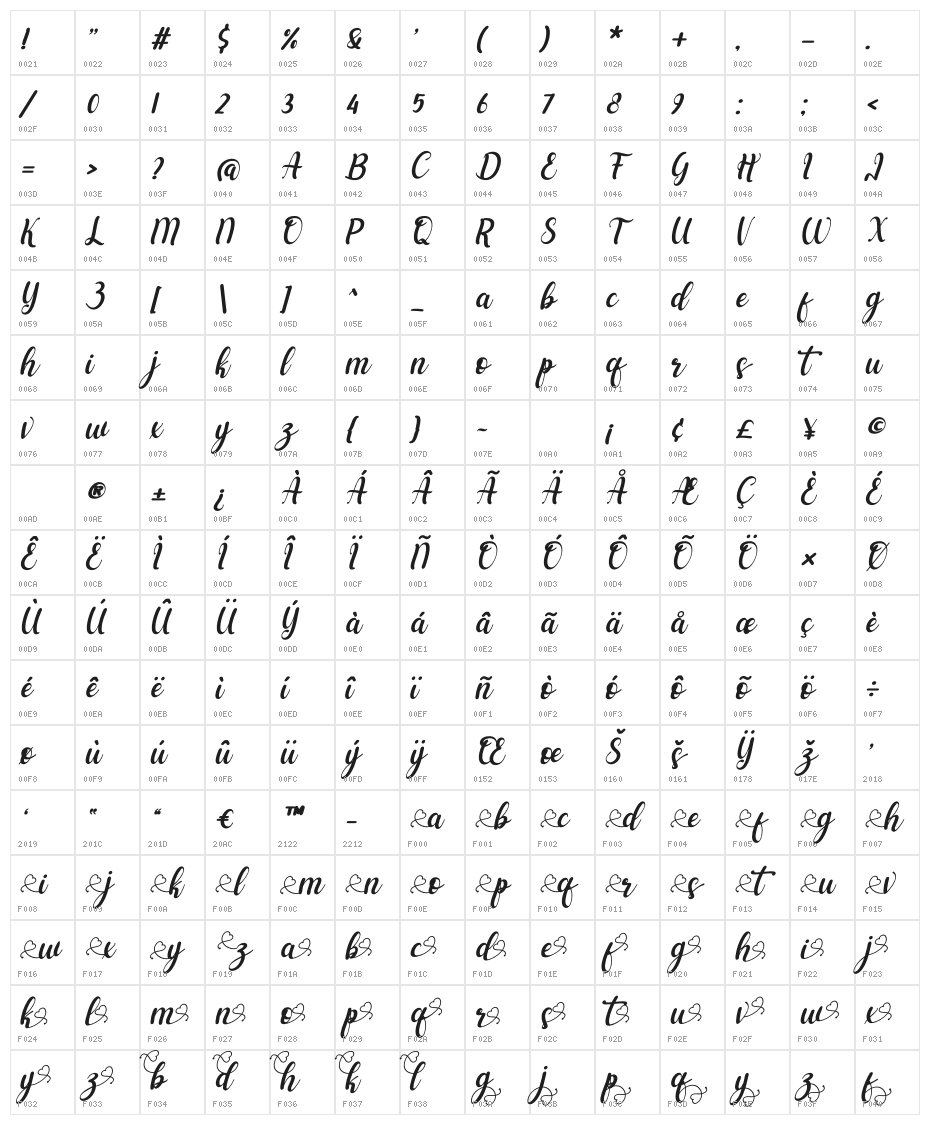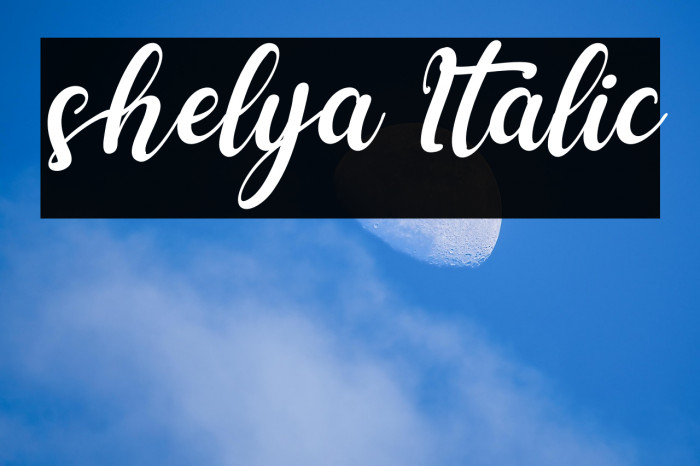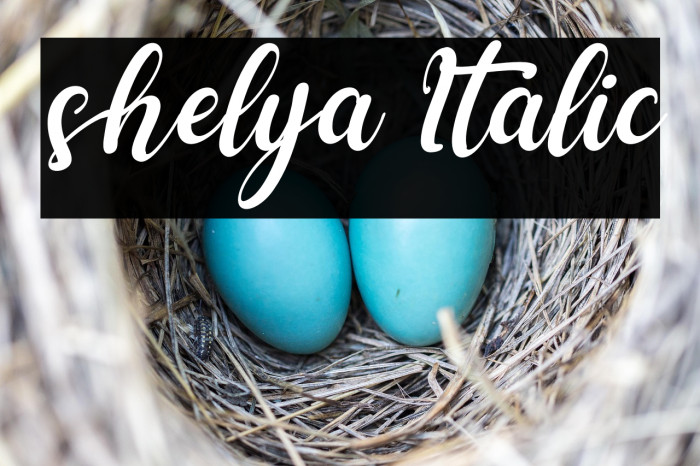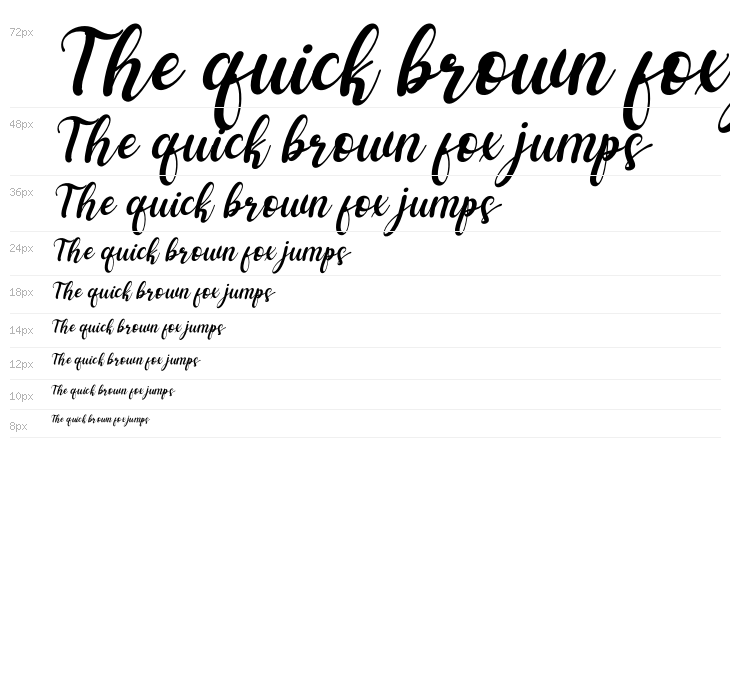
shelya Italic Font
shelya Italic Description
This font features a flowing, cursive style with elegant, sweeping lines that give it a sophisticated and artistic appearance. The characters are interconnected, creating a seamless and fluid look that is both dynamic and graceful. The uppercase letters are bold and prominent, while the lowercase letters maintain a consistent, smooth flow. The numerals and special characters are designed to match the overall aesthetic, ensuring a cohesive appearance across all text. This font is ideal for projects that require a touch of elegance and creativity, such as invitations, branding, and decorative designs.
| Overall Style | Elegant, Artistic |
| Use Case | Headlines, Invitations, Branding |
| Proposed Projects | Ideal for wedding invitations, branding, decorative designs, and artistic projects. |